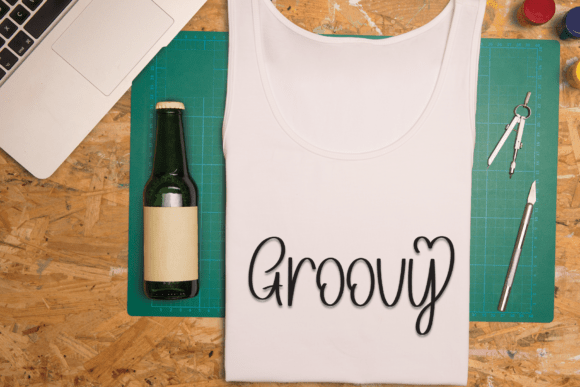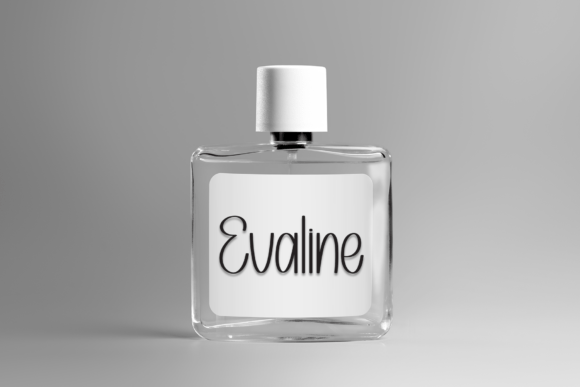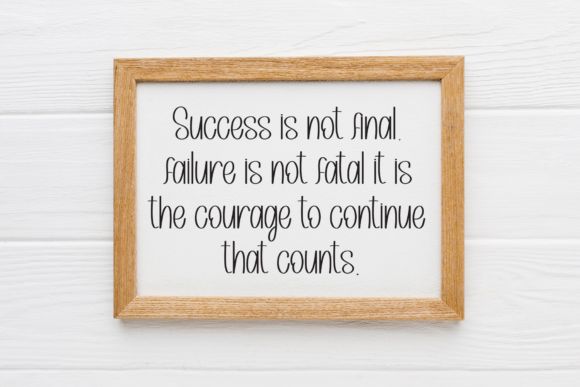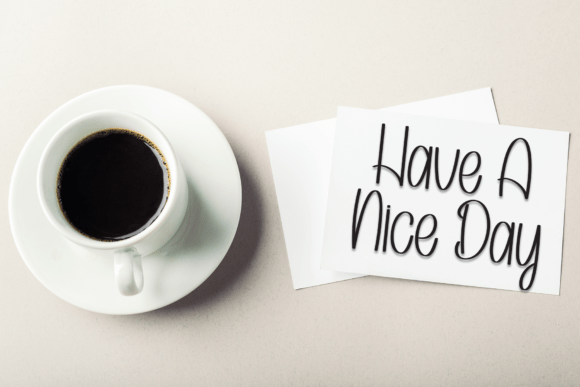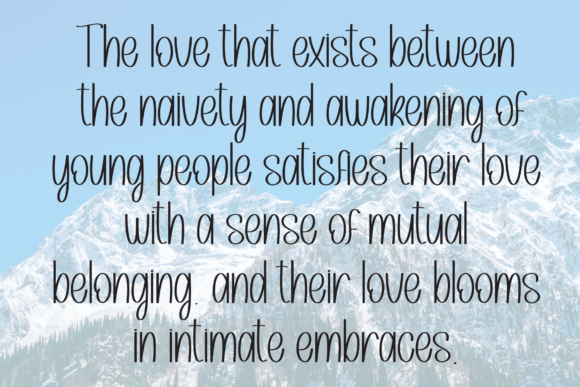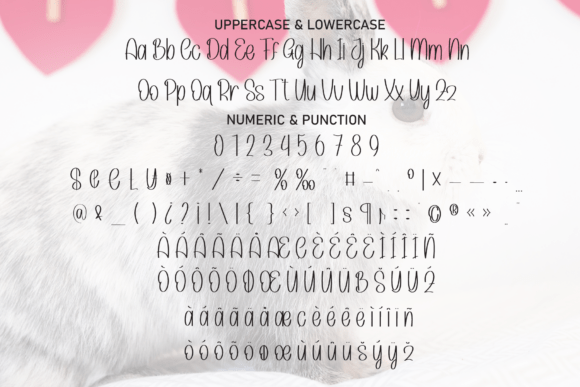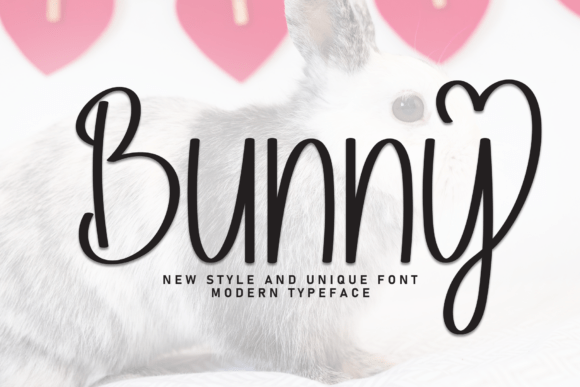
Bunny Font: Elevate Your Designs with Elegance and Charm
In the world of typography, few fonts capture the essence of elegance and charm as effortlessly as Bunny Font. This stylish handwritten script font is designed to bring a touch of sophistication and refinement to any design project. With its fluid, graceful strokes, Bunny Font is perfect for a variety of applications, including branding, invitations, and stationery.
The Characteristics of Bunny Font
Bunny Font is distinguished by its smooth curves and natural flow, which create a timeless and refined look. The font’s fluid strokes give it a sense of movement and elegance, making it ideal for designs that require a personal and sophisticated touch. Whether you’re working on a logo, invitation, or piece of stationery, Bunny Font is sure to add a level of refinement and polish.
Perfect for Branding
Branding is all about creating a lasting impression, and the right font can play a crucial role in achieving this goal. Bunny Font is an excellent choice for branding projects, as it exudes a sense of elegance and sophistication. Its unique and stylish appearance will help your brand stand out from the competition, while its refined look will ensure that your brand is taken seriously. Whether you’re working on a logo, business card, or website, Bunny Font is a great choice for adding a touch of class and refinement.
Ideal for Invitations and Stationery
Invitations and stationery are a great way to make a personal connection with your audience, and the right font can help you achieve this goal. Bunny Font is perfect for invitations, thank-you cards, and other stationery items, as it adds a touch of elegance and sophistication. Its smooth curves and natural flow create a refined look that is sure to impress, while its unique and stylish appearance will make your designs stand out.
Tips for Using Bunny Font
To get the most out of Bunny Font, here are a few tips to keep in mind:
- Use it sparingly: While Bunny Font is elegant and refined, it can be overwhelming if used excessively. Use it sparingly to add a touch of sophistication to your designs.
- Pair it with complementary fonts: Bunny Font pairs well with a variety of fonts, including serif and sans-serif fonts. Experiment with different combinations to find the perfect pairing for your design.
- Experiment with colors: Bunny Font looks great in a variety of colors, from bold and bright to soft and pastel. Experiment with different colors to find the perfect look for your design.
Why Designers and Crafters Love Bunny Font
Bunny Font has quickly become a favorite among designers and crafters, and for good reason. Its unique and stylish appearance makes it perfect for a variety of design projects, while its refined look and feel ensure that it will add a touch of elegance and sophistication to any design. Here are just a few reasons why designers and crafters love Bunny Font:
- Elegance and charm: Bunny Font exudes elegance and charm, making it perfect for designs that require a personal and sophisticated touch.
- Versatility: Bunny Font is versatile and can be used for a variety of design projects, from branding and invitations to stationery and more.
- Easy to read: Despite its elegant and refined appearance, Bunny Font is easy to read, making it perfect for designs that require a clear and concise message.
In conclusion, Bunny Font is a stylish handwritten script font that is perfect for designers and crafters looking to add a touch of elegance and sophistication to their designs. With its fluid, graceful strokes and smooth curves, Bunny Font is ideal for branding, invitations, and stationery. Its refined look and feel ensure that it will add a level of polish and refinement to any design, making it a great choice for anyone looking to create a lasting impression.